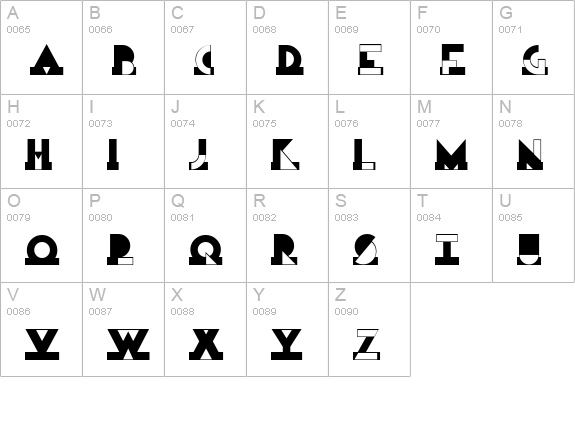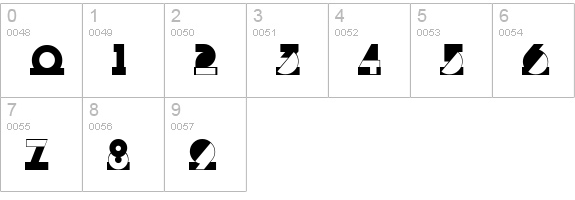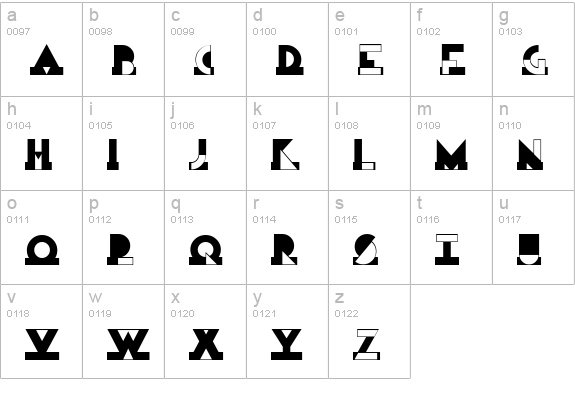
Modern Art NF Font Details
Modern Art NF font is a sleek and stylish typeface that exudes a sense of contemporary sophistication. Its clean lines and unique design make it a perfect choice for modern projects seeking a touch of elegance. With its sharp angles and geometric shapes, this font adds a touch of artistic flair to any design. What sets Modern Art NF font apart is not just its striking appearance, but also the fact that it is available for free download at FontsMarket.com. This means that designers and creatives can easily access this beautiful font without any cost, making it a valuable addition to any font collection. Whether you're working on branding, advertising, or any other creative project, Modern Art NF font is sure to make a statement. Download it for free today and elevate your designs with this stunning typeface.